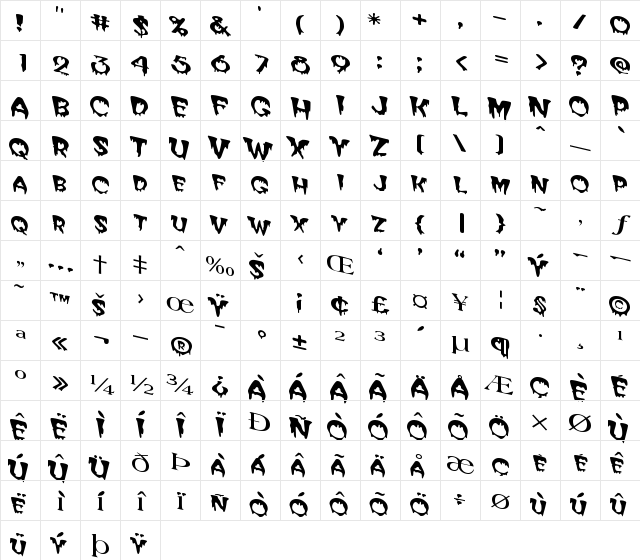
MATTEROFFACT Regular Free Font
MATTEROFFACT Regular
Design Context for MATTEROFFACT
MATTEROFFACT is a composed and adaptable typeface that performs quietly and consistently across a wide range of design contexts.